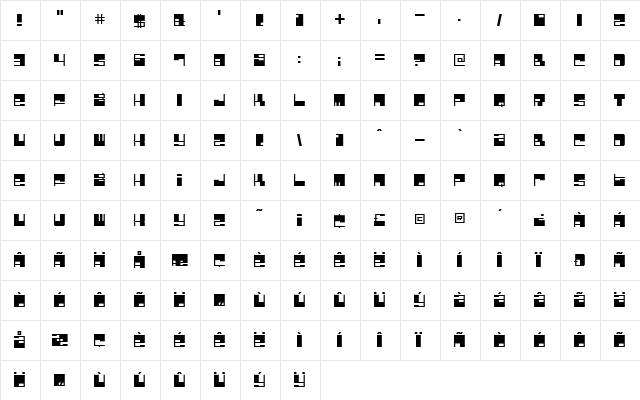
Bomb Factory Regular
| Designer | Andreas Nylin |
Design Context for Bomb Factory Typeface
Bomb Factory is a composed and adaptable typeface that performs quietly and consistently across a wide range of design contexts.